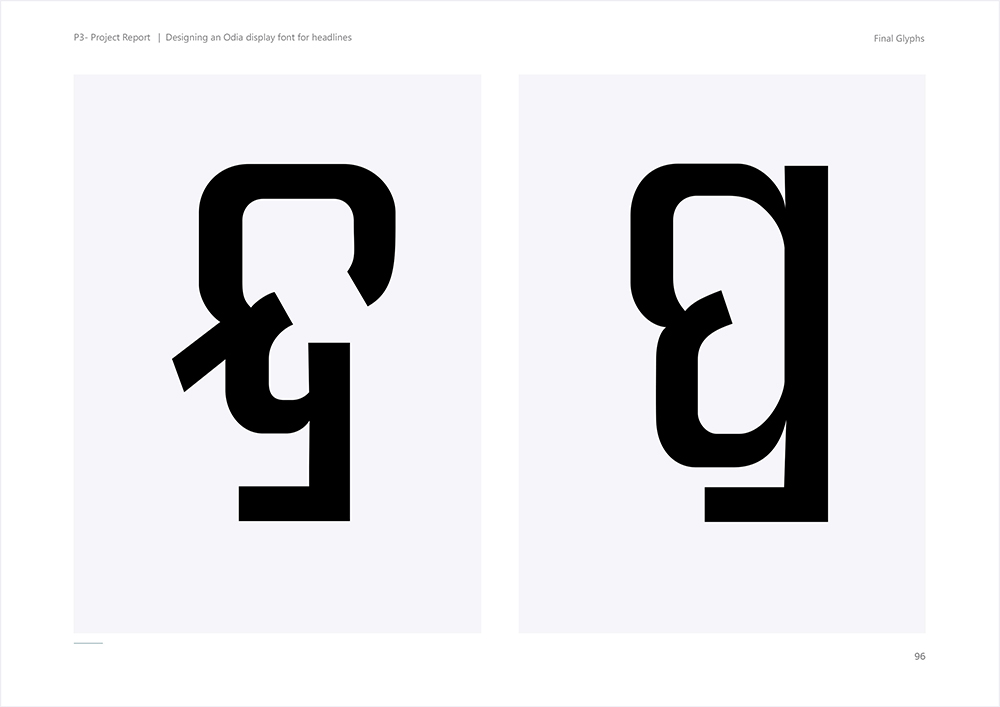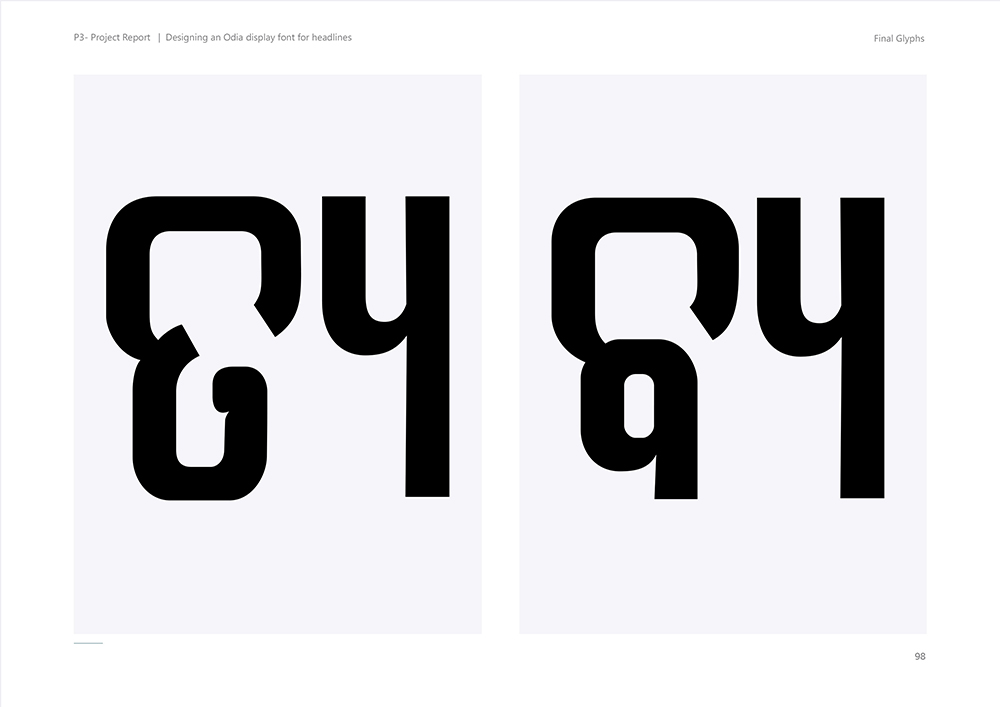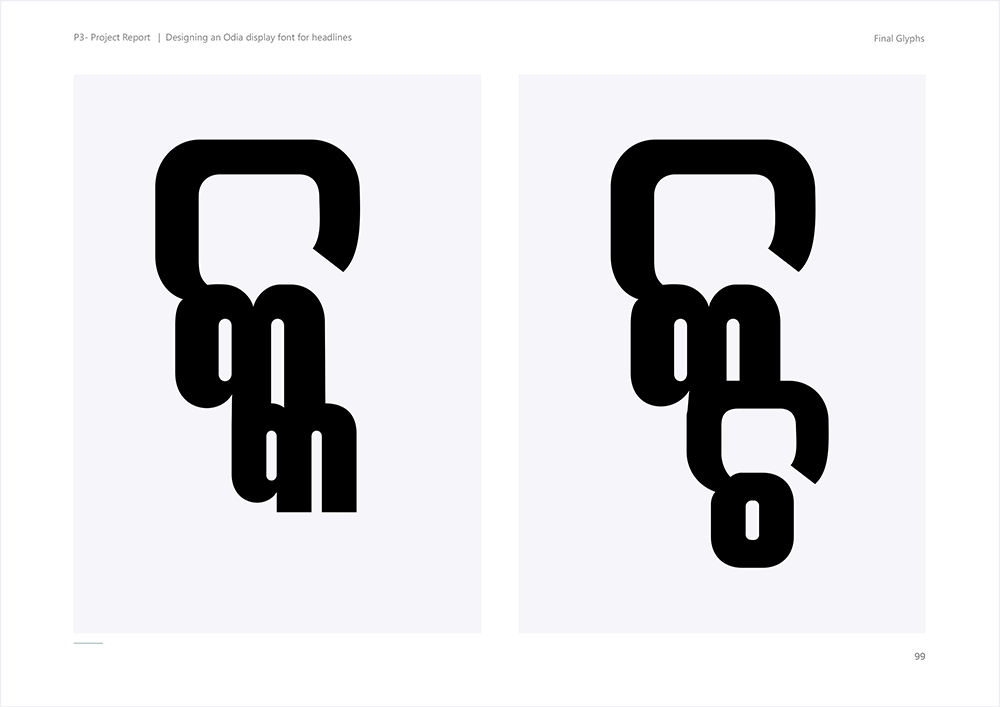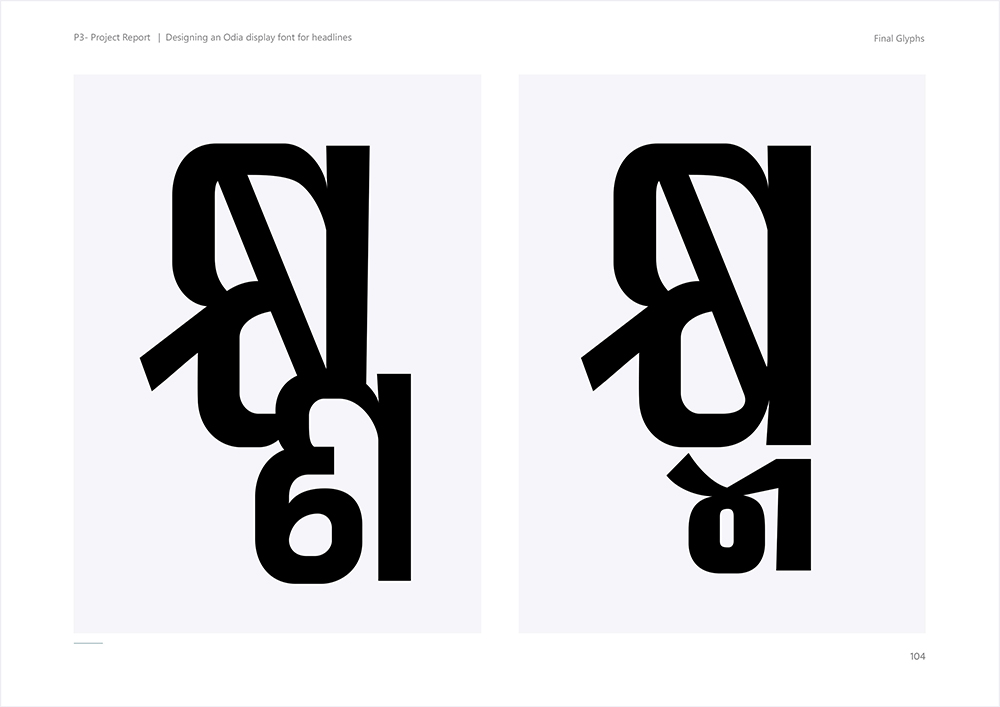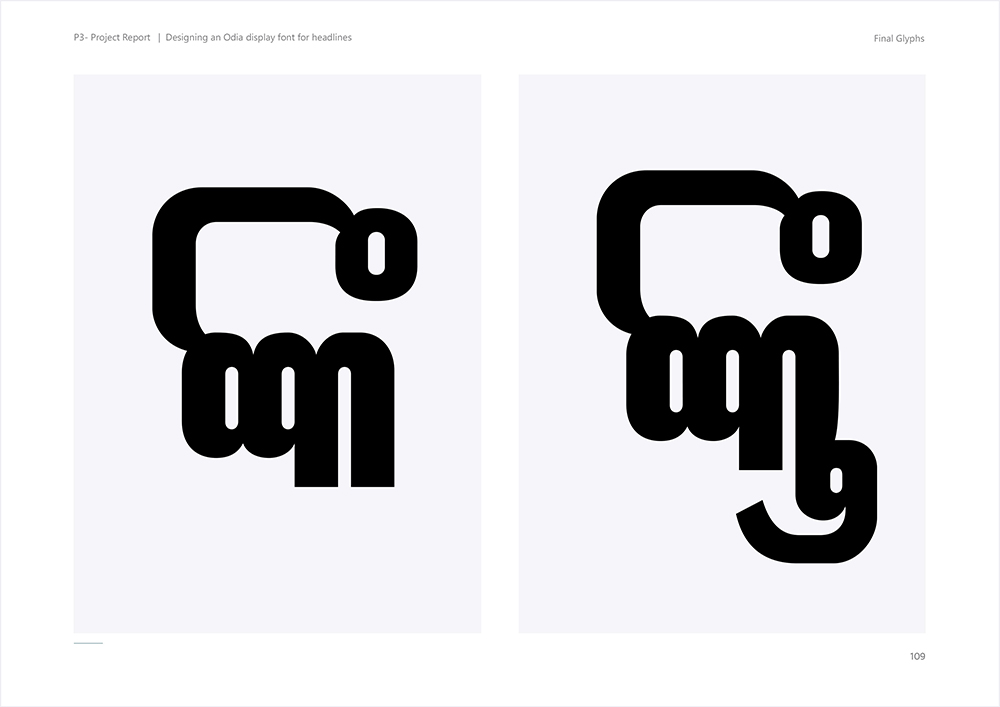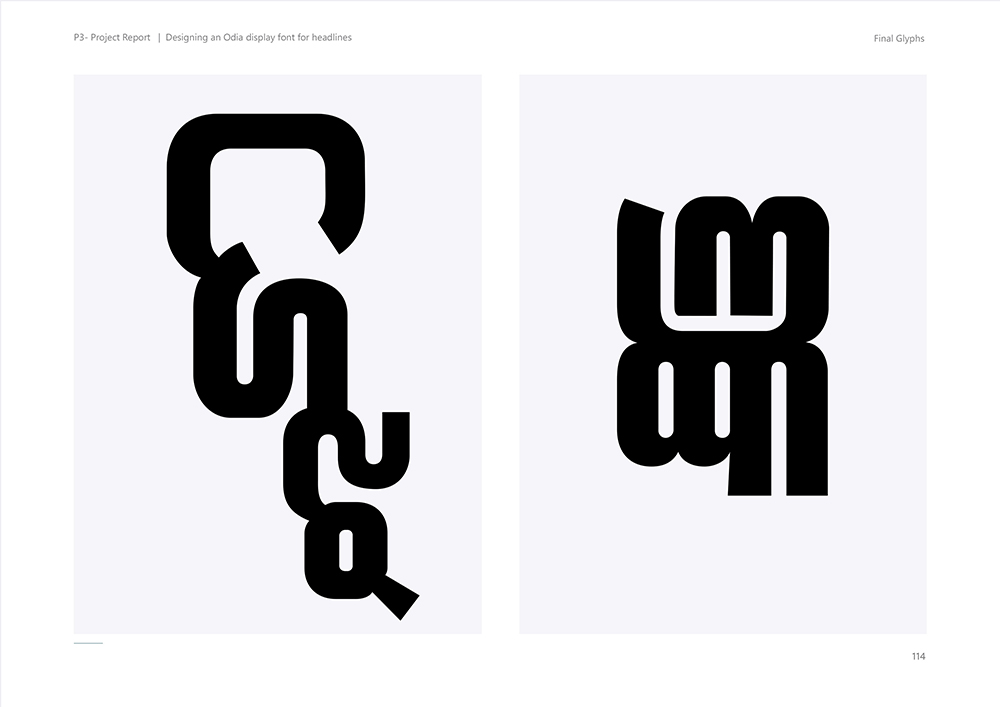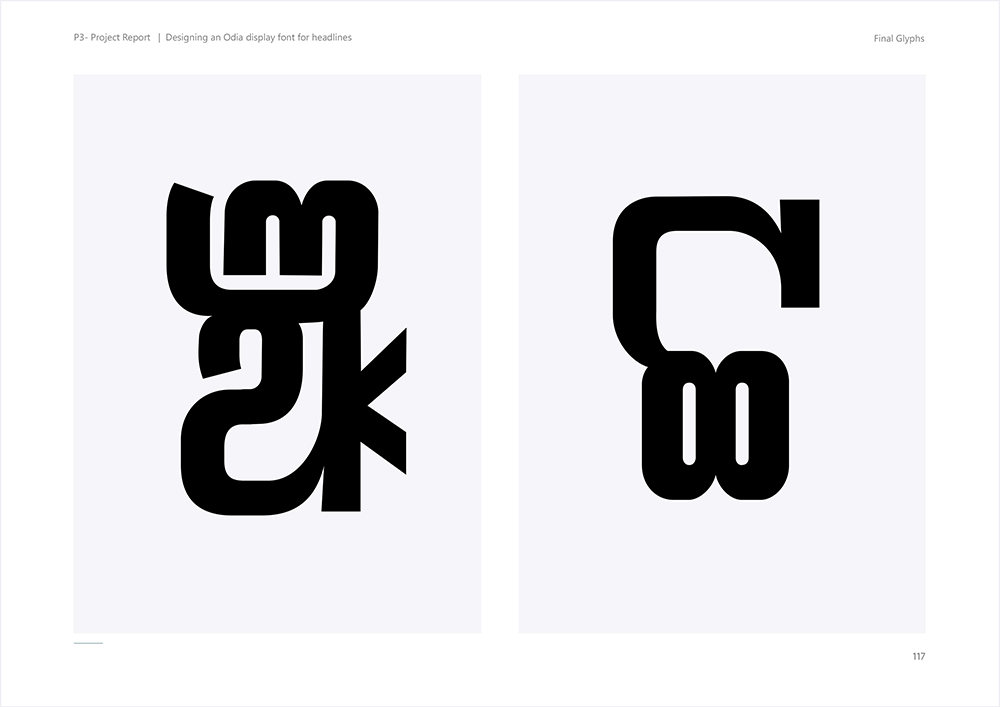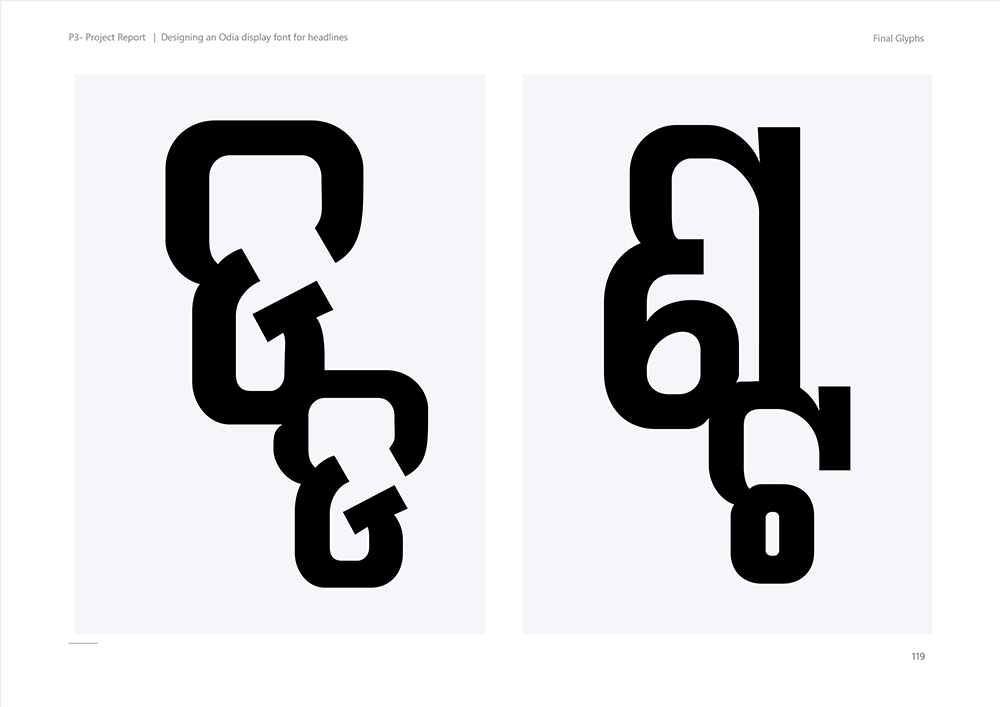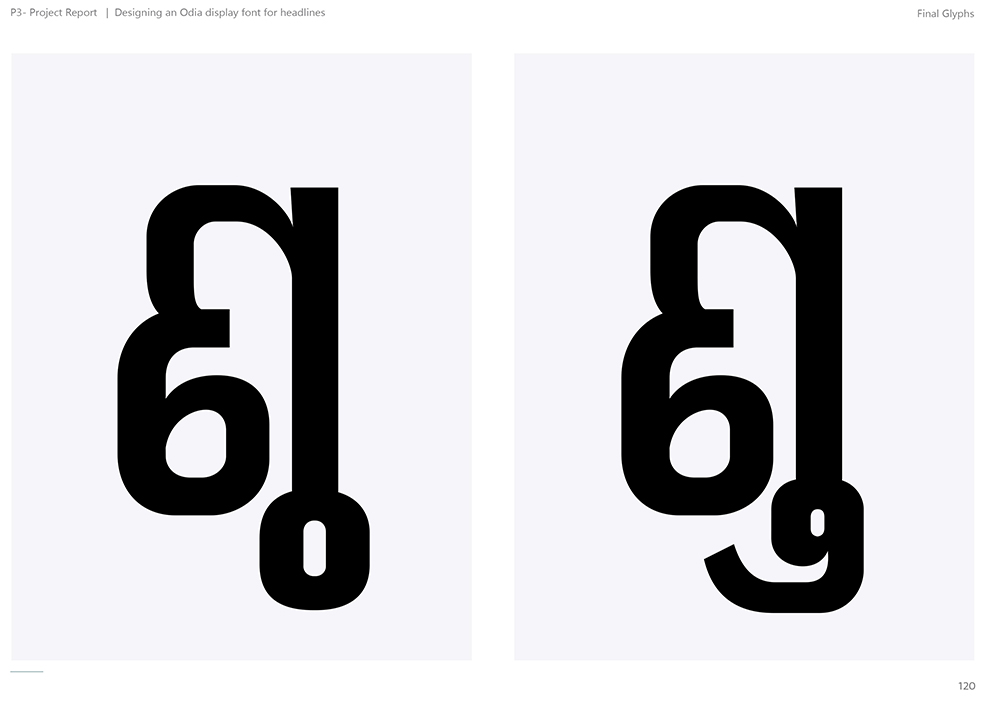
Design Case study
Designing an Odia Display Font for Headlines
Enriching the Odia content on the web
Design process that was followed in this project:
• Aim and Objectives
- Aim
- Learning Objectives
• Font Terminologies
- What are Display Fonts
- What are Body Fonts
- Display vs Body Fonts
• Headline Fonts
- Purpose of Headline Fonts
- Desired Characteristics of Odia Headline Font
• Existing Headline Typefaces
- Headline Typefaces in Latin
- Headline Typefaces Devanagari
- Headline Typefaces Odia
• Odia Headline Fonts in use
- Headline Samples from Odia Daily
- Headline Analysis Conclusion
• Width axis and Headline Fonts
- How the width affect the headline
- Saving Space with width variation
• Optical Illusions in Odia Type
- Poggendorff Illusion
- Jastrow Illusion
- Muller Lyer Illusion
- Gestalt Law of Proximity
- Balance Top and Bottom
• Odia Script Details
- Characters in Odia Script
- Grouping letters based on the Form
• Font Properties and Styles
- ‘Monolinear’ vs ‘Modulated’ Fonts
- Style Explorations
• Font Design Process
- Glyph Sketches
- Vertical Grid for the font
- Composing words with sketches
- Naming the Font
- Vector Drawings of the Glyphs
• Font Testing
- Composed names and Comparison
- Headline Simulation with the new font
- Composing Words
• Final Glyphs
• References